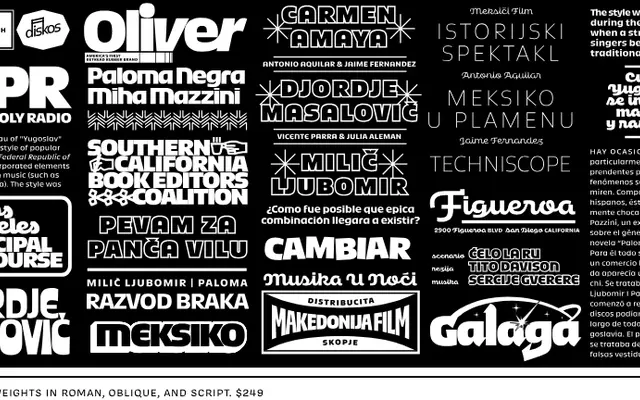
Yumex
OH no Type · Zrinka Buljubašić and Gen Ramírez
A mid-century sans and script pairing by Zrinka Buljubašić and Gen Ramírez, inspired by the unlikely cultural crossover between Yugoslav and Mexican pop graphics of the 1950s and 60s.
Yumex comes in two families: a geometric sans in seven weights with roman and italic cuts, and a companion script in seven weights, totalling 21 styles and two variable fonts. The concept draws on the period when Yugoslavia, unable to import Soviet or American films, developed a genuine enthusiasm for Mexican cinema, spawning graphic material that boldly combined sans-serifs with expressive scripts. The result is a type family with a specific and well-researched cultural premise, as useful for editorial and display work as it is for identity projects that want warmth and period flavour.
Yumex is a geometric-leaning sans-serif with a mid-century sensibility, paired with a companion script family that together reference 1950s–60s Yugoslav and Mexican pop culture graphics.